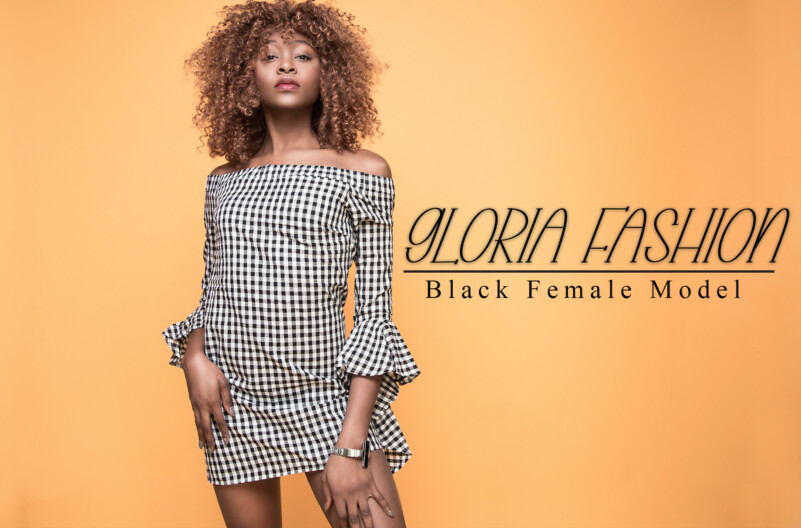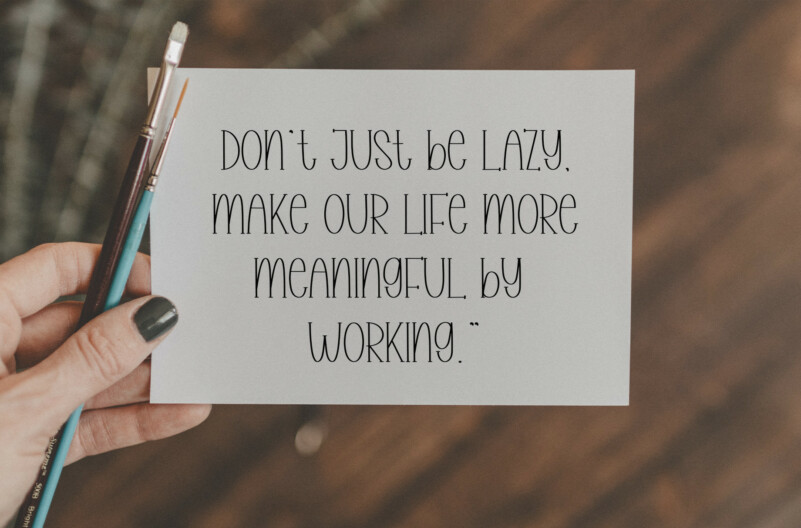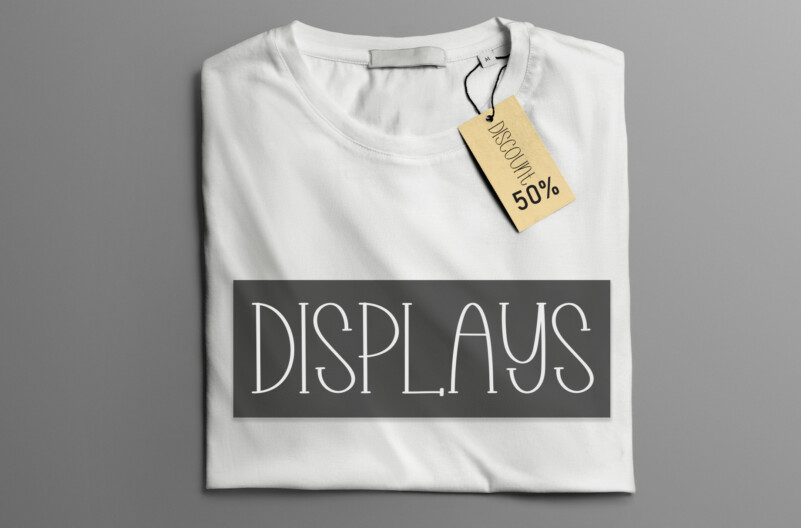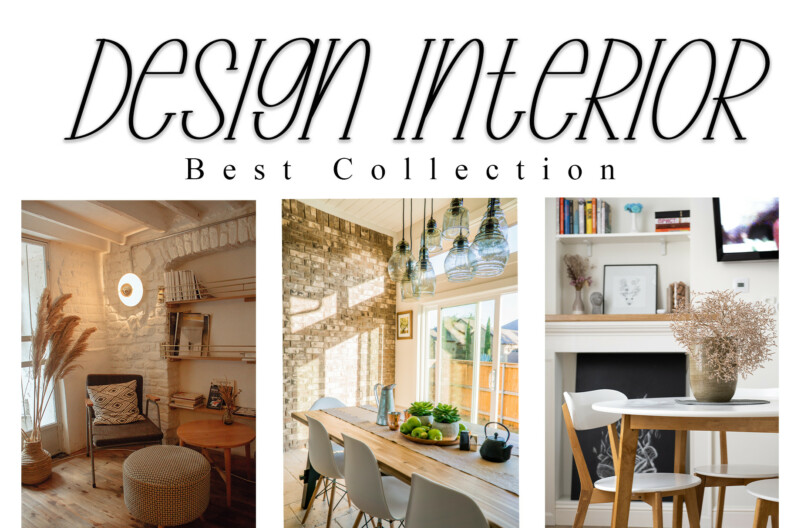
Pastry Dough Display Font
Pastry Dough Display Font is a sweet and friendly handwritten display font. Cute and fun, this font is ideal for writing wedding invitations, cards, or any other design that might need a playful touch!